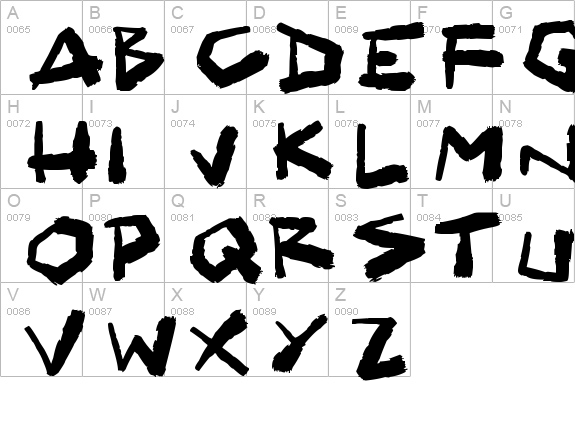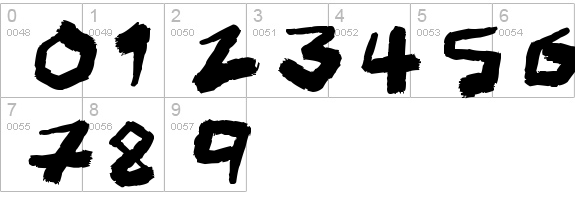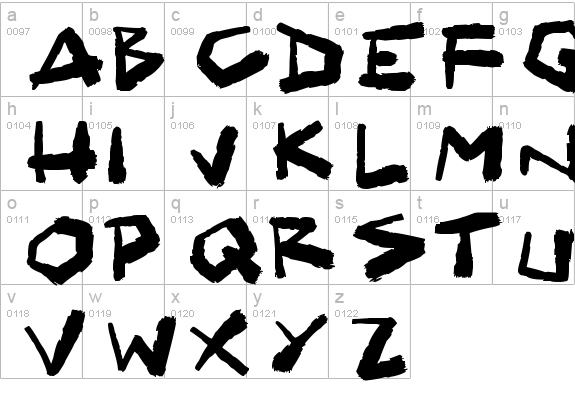
Crazy Guy Font Details
Crazy Guy font is a playful and energetic typeface that exudes a sense of fun and excitement. With its quirky shapes and unconventional letterforms, this font is perfect for adding a touch of whimsy to your projects. Whether you're designing posters, invitations, or branding materials, Crazy Guy font will make your text stand out and grab attention.